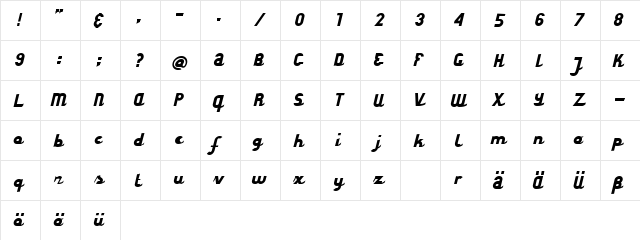
styroscript connected
Design Context for styroscript Typeface
styroscript flows with the natural rhythm of handwritten lettering, making it ideal for designs that call for warmth and personal expression.